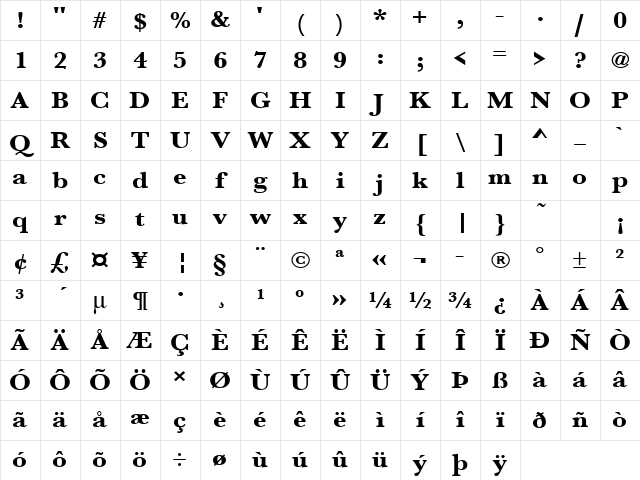
URWBaskerTExtBolExtWid Regular
Design Context for URWBaskerTExtBolExtWid
URWBaskerTExtBolExtWid is a composed and adaptable typeface that performs quietly and consistently across a wide range of design contexts.